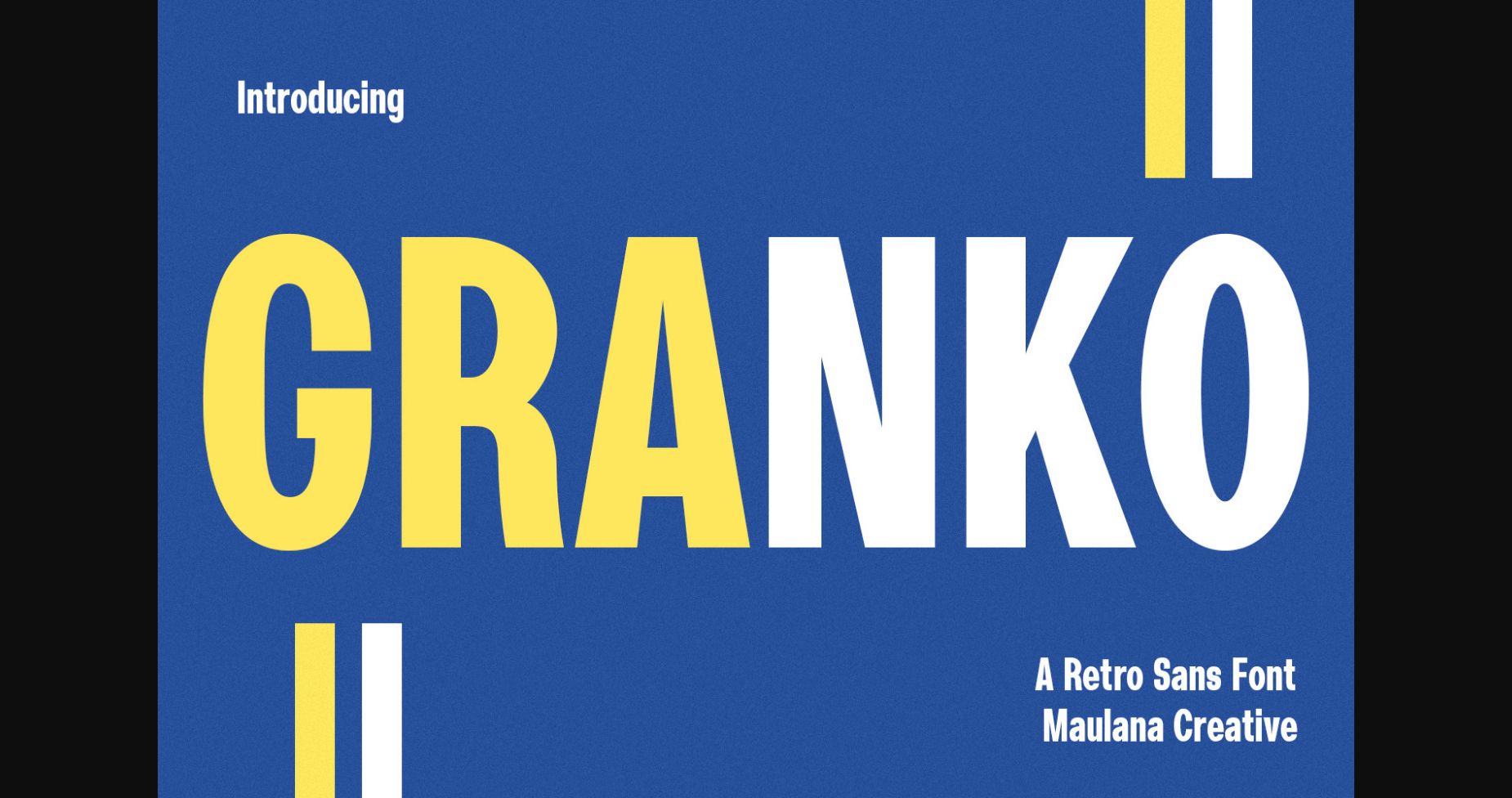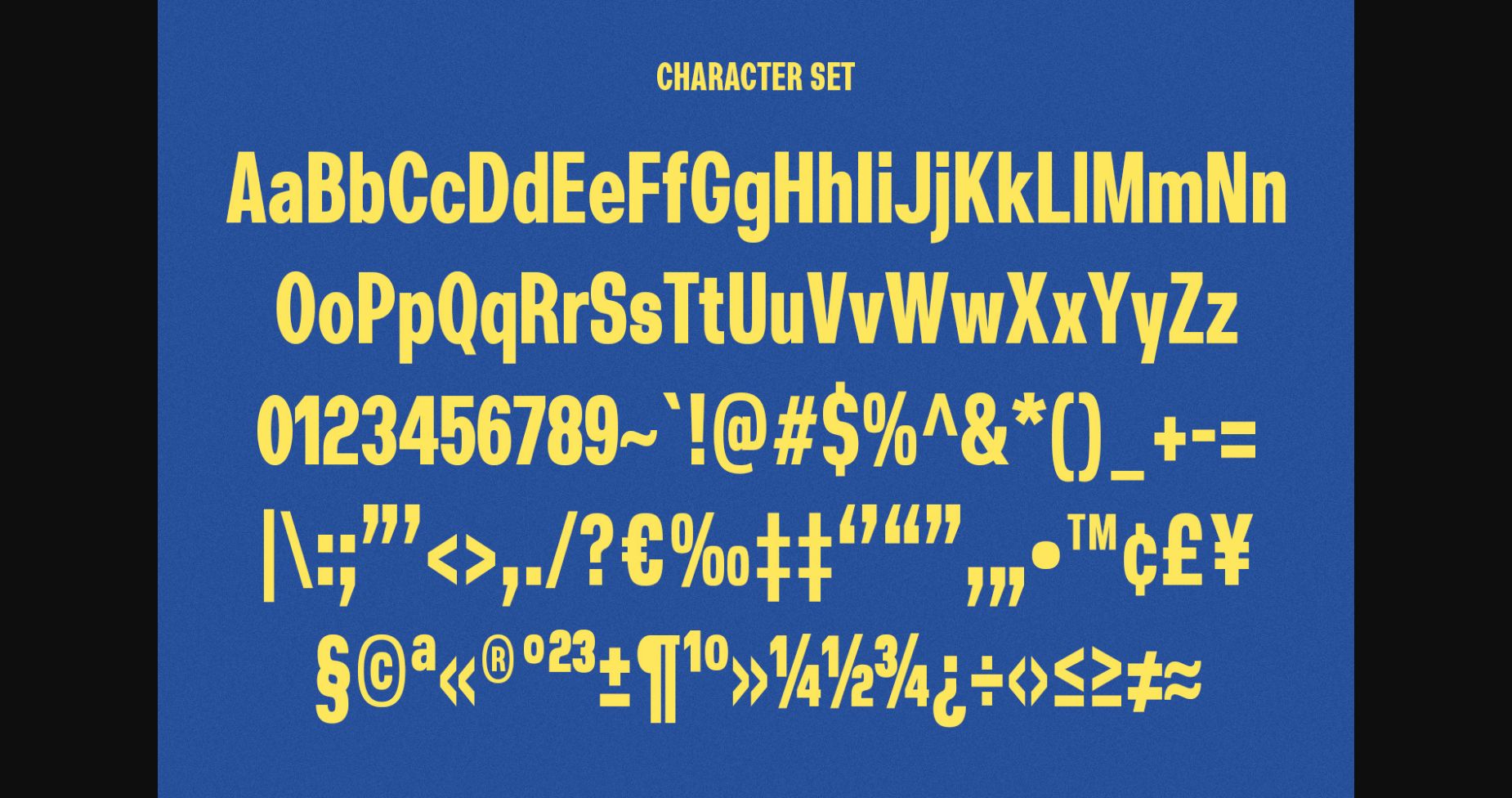
About Granko Font
Granko is a retro-inspired, condensed sans-serif font that adds a touch of nostalgia to any design. Its condensed structure and bold lines make it perfect for headlines, titles, and logos. Whether you’re designing for a vintage-themed project or just want to add a bit of old-school charm, RetroCondense is the font for you.